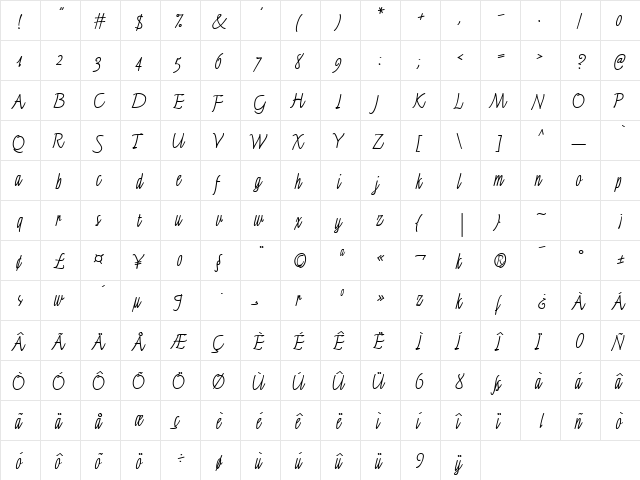
Fineline Macro
Design Context for Fineline Typeface
Fineline takes a measured approach to typography — its balanced proportions and neutral character make it a reliable workhorse for both digital and print work.
Pro Tip: Use Fineline in both headline and body roles to test its range before committing to a single application.